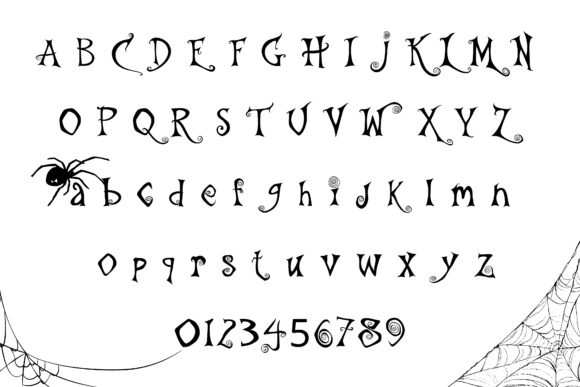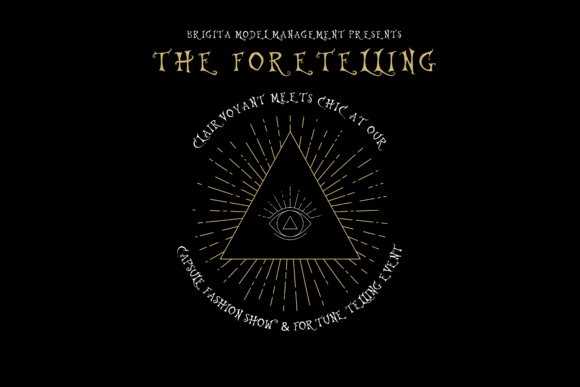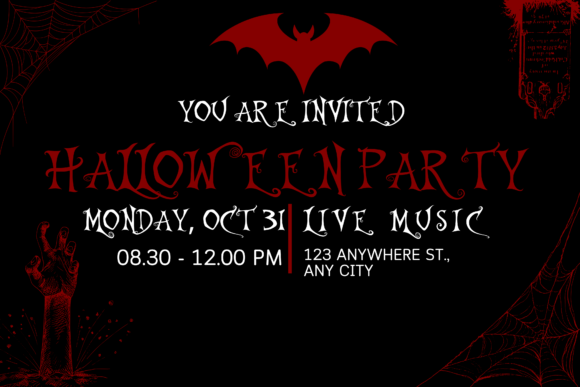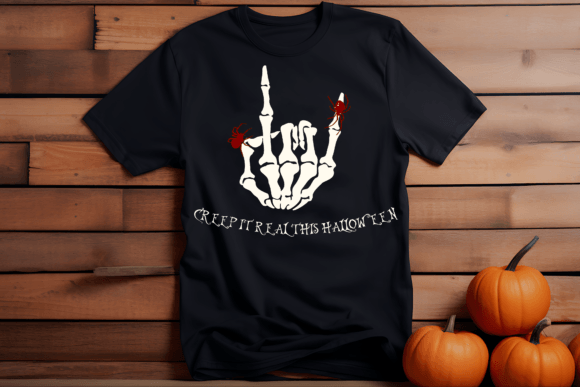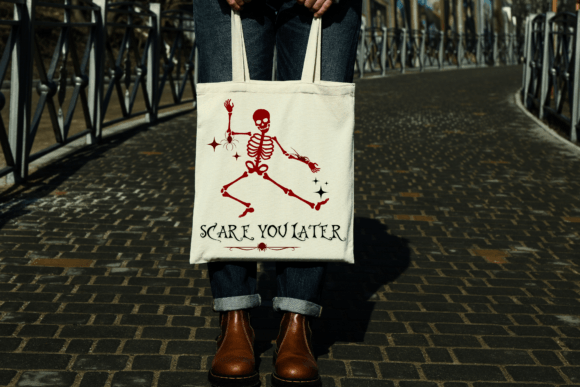
Unleash the Spookiness: Exploring the Haunted House Font
Are you a designer, crafter, or simply someone who loves the eerie and unknown? Look no further than the Haunted House Font, a handwritten font that’s perfect for adding a touch of spookiness to your projects. In this article, we’ll dive into the world of Haunted House Font, exploring its uses, benefits, and creative applications.
What is Haunted House Font?
Haunted House Font is a unique, handwritten font that’s designed to evoke the feeling of mystery and intrigue. Its irregular lines and uneven spacing give it a charming, homemade quality that’s perfect for creating a sense of nostalgia or eeriness. Whether you’re looking to create a creepy Halloween design or a more subtle, vintage-inspired look, Haunted House Font is the perfect choice.
Uses for Haunted House Font
So, what can you use Haunted House Font for? The possibilities are endless! Here are a few ideas to get you started:
- Note-taking and journaling: Add a touch of personality to your notes and journal entries with Haunted House Font. It’s perfect for writing down spooky stories, creepy legends, or simply jotting down your thoughts and ideas.
- Greeting cards and invitations: Create unique and eye-catching greeting cards and invitations for Halloween, birthdays, or other special occasions. Haunted House Font is sure to add a touch of whimsy and fun to your designs.
- Banners and signs: Use Haunted House Font to create eye-catching banners and signs for your next party, event, or DIY project. Its bold, handwritten style is sure to grab attention and add a touch of personality to your designs.
- Social media posts: Add a touch of spookiness to your social media posts with Haunted House Font. Use it to create creepy captions, eerie quotes, or simply to add a touch of personality to your online presence.
- Mugs, cards, shirts, and more: Haunted House Font is perfect for creating a wide range of DIY projects, from customized mugs and cards to t-shirts and tote bags. Its versatility and charm make it a great choice for any crafty project.
Benefits of Using Haunted House Font
So, why choose Haunted House Font for your next project? Here are just a few benefits of using this unique and versatile font:
- Unique and eye-catching: Haunted House Font is a one-of-a-kind font that’s sure to add a touch of personality to your designs. Its irregular lines and uneven spacing make it stand out from more traditional fonts.
- Easy to read: Despite its irregularities, Haunted House Font is surprisingly easy to read. Its clear, handwritten style makes it perfect for creating designs that are both visually appealing and easy to understand.
- Versatile: Haunted House Font is perfect for a wide range of projects, from DIY crafts to commercial designs. Its versatility and charm make it a great choice for any creative project.
Tips for Using Haunted House Font
Ready to start using Haunted House Font in your designs? Here are a few tips to get you started:
- Experiment with different sizes and colors: Haunted House Font looks great in a variety of sizes and colors. Experiment with different combinations to find the perfect look for your project.
- Pair it with other fonts: Haunted House Font pairs well with a wide range of other fonts. Try pairing it with a bold, sans-serif font for a striking contrast.
- Use it sparingly: While Haunted House Font is perfect for creating eye-catching designs, it can be overwhelming if used too much. Use it sparingly to add a touch of personality to your projects.
Haunted House Font is a unique and versatile font that’s perfect for adding a touch of spookiness to your designs. Whether you’re a designer, crafter, or simply someone who loves the eerie and unknown, this font is sure to inspire your creativity. With its irregular lines, uneven spacing, and charming handwritten style, Haunted House Font is the perfect choice for any project that needs a touch of personality and whimsy.